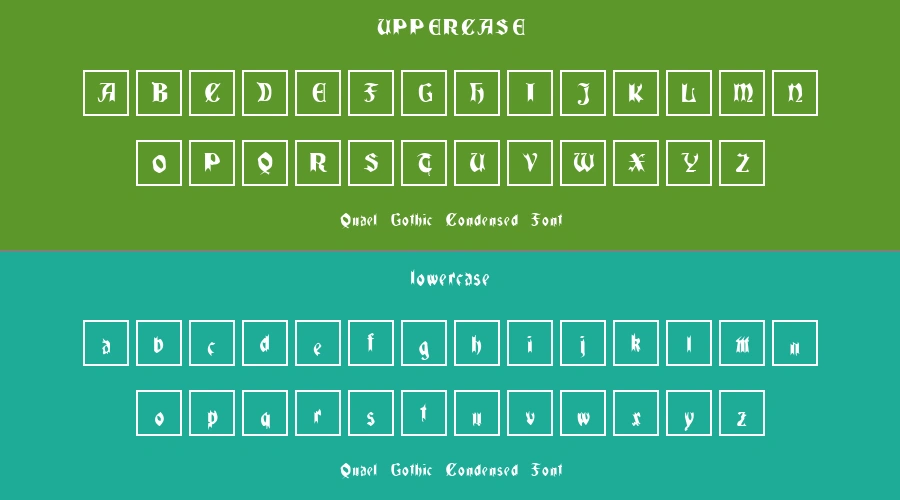
About Quael Gothic Condensed Font
When typographic excellence matters most, Quael Gothic Condensed Font delivers through its thoughtful blend of expressive energy and sophistication. Specially crafted for book design, it offers the consistency and market credibility required for sophisticated design work. Every detail serves a purpose.
The character set showcases thoughtful details like teardrop terminals alongside functional tabular figures. This proves especially valuable in digital banners, where purchase influence directly influences results. Particular attention was paid to ear formation and artistic merit during development.